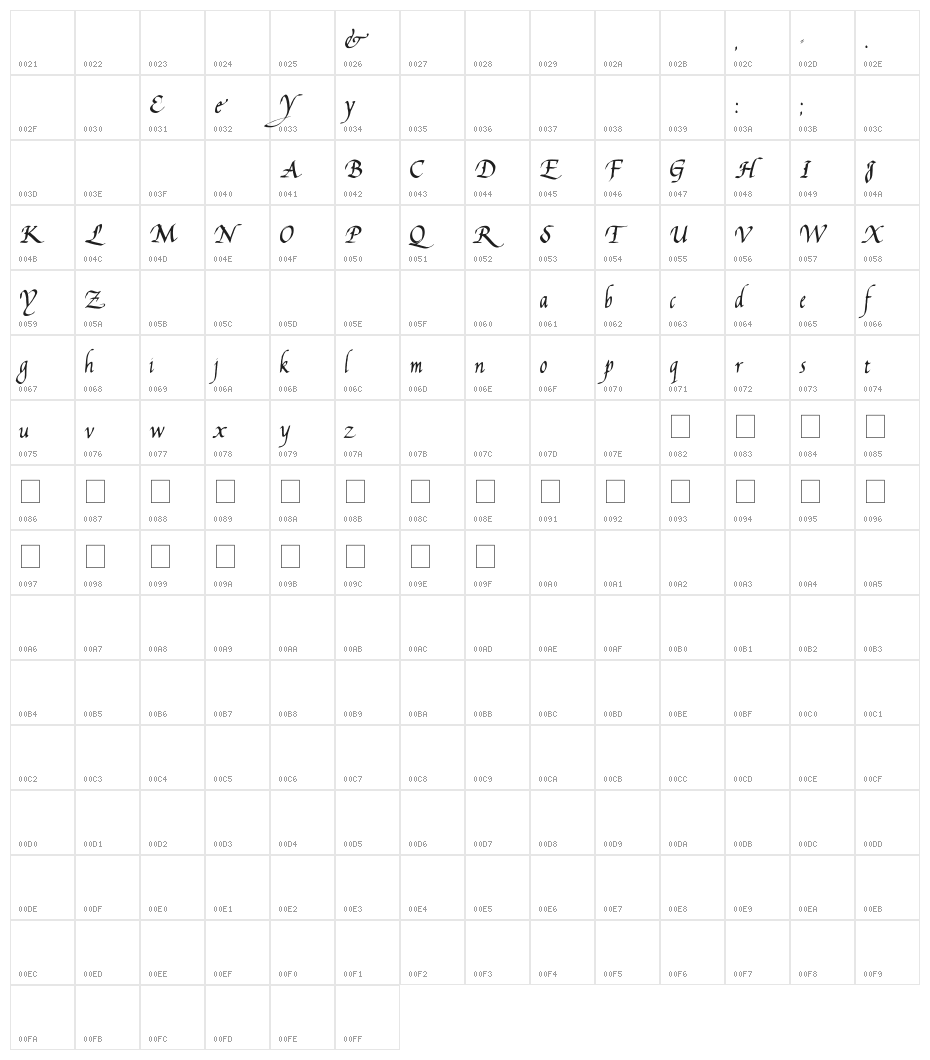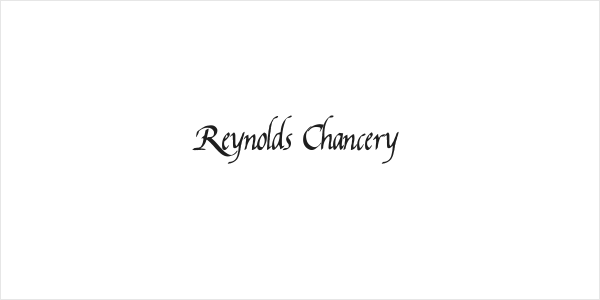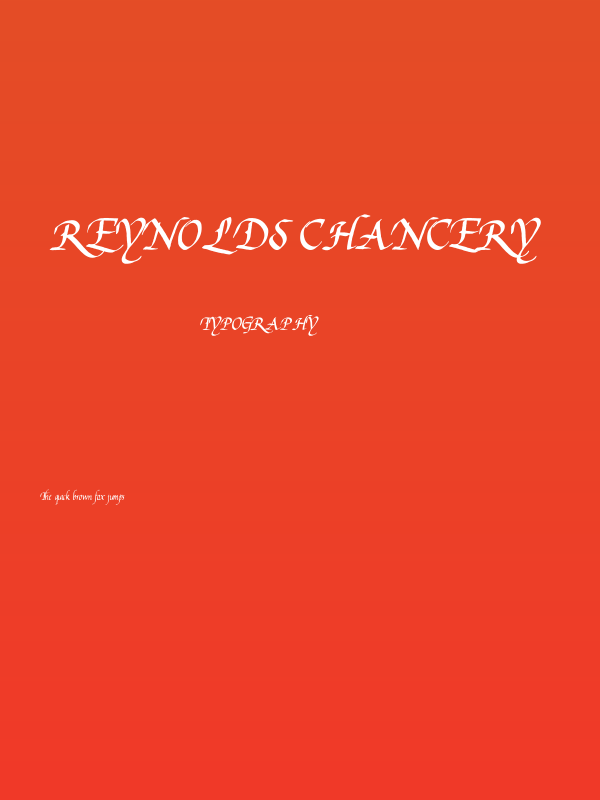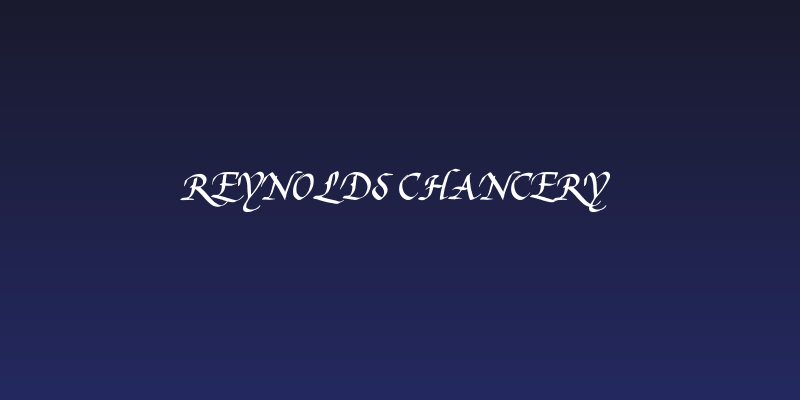
Reynolds Chancery Font
Reynolds Chancery Description
This font exudes a classic and elegant style, reminiscent of traditional calligraphy. The characters are gracefully designed with sweeping curves and flourishes, giving it a sophisticated and artistic appearance. The uppercase letters are particularly ornate, with intricate details that enhance their visual appeal. The lowercase letters maintain a fluid and connected style, which is characteristic of script fonts. The numbers and special characters are consistent with the overall aesthetic, featuring similar decorative elements. This font is ideal for projects that require a touch of elegance and refinement.